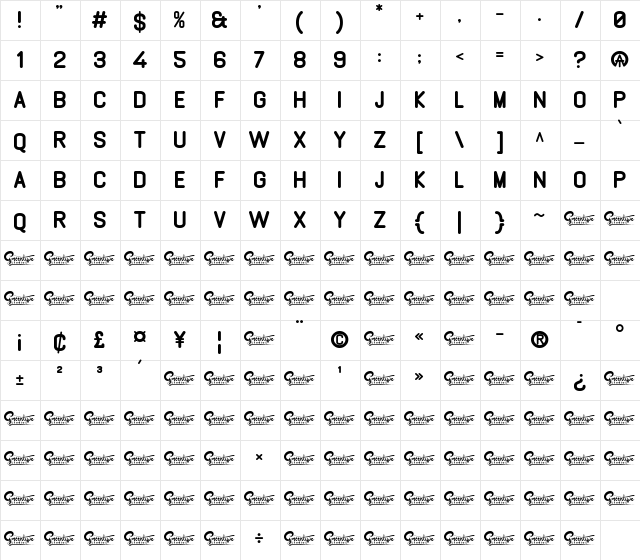
GABOED Regular
Design Context for GABOED Typeface
GABOED is a composed and adaptable typeface that performs quietly and consistently across a wide range of design contexts.